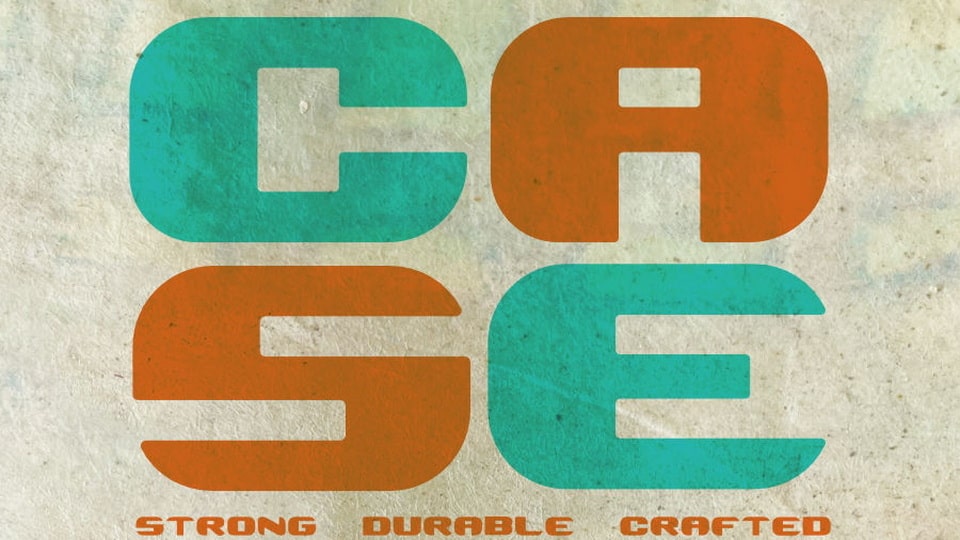
Download Case font, an all-caps display typeface designed to portray strength with a hand-crafted feel. Case font is great for logos, posters, and other large formats.
Designer: Ron Nevers